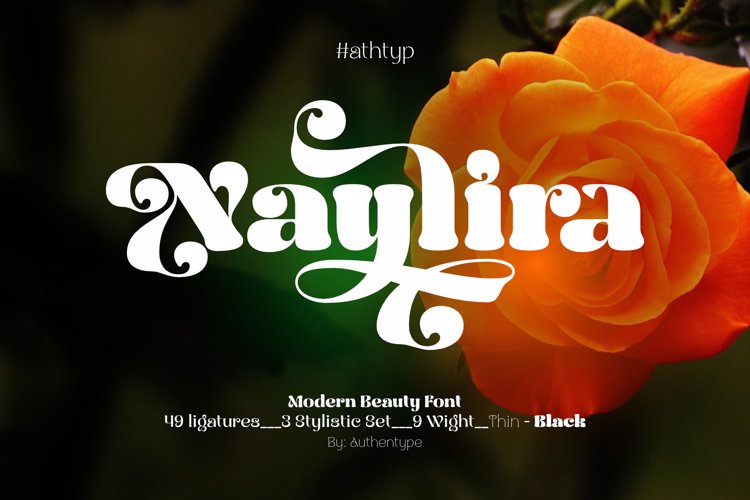
Naylira Black Font
Black Style
Naylira is a modern beauty serif font crafted to bring timeless elegance and sophistication to your creative projects. Featuring graceful curves, high contrast strokes, and delicate details, Naylira is designed to elevate any design that calls for luxury, femininity, and refinement.